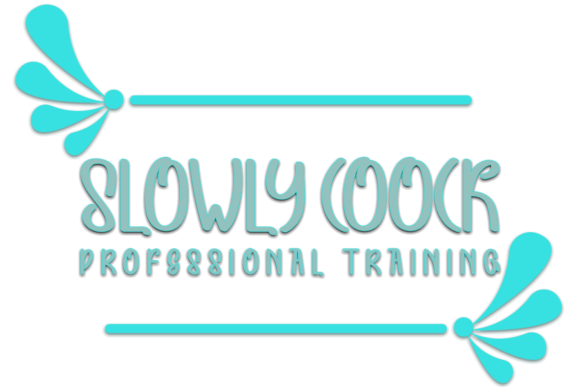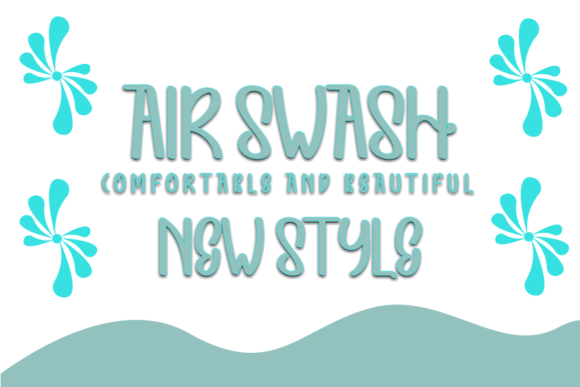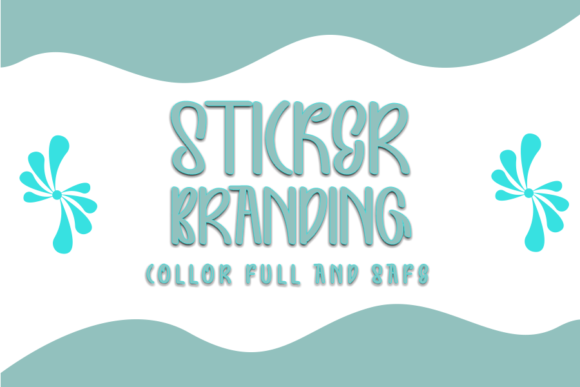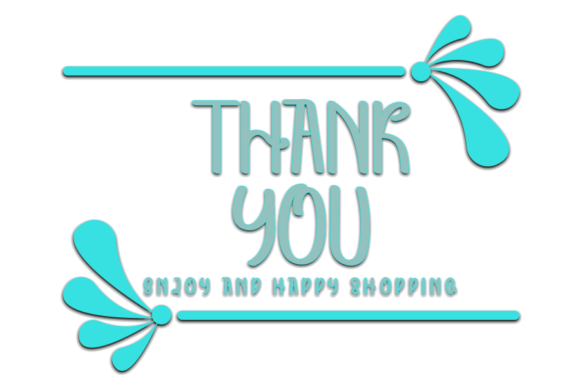
Introducing Crish Stick Font: The Ultimate Modern Handwritten Font
In the world of typography, a good font can make all the difference in the success of a design project. For designers and crafters looking for a modern, yet down-to-earth font, Crish Stick is an excellent choice. This carefully handcrafted handwritten font is designed to become a true favorite, offering a unique blend of casual charm and versatility.
The Characteristics of Crish Stick Font
Crish Stick is a modern handwritten font that boasts a wonderfully down-to-earth and readable style. Its casual charm makes it perfect for a wide range of design applications, from busy backgrounds to standalone headlines. The font’s unique characteristics include:
- Handcrafted with love: Crish Stick is carefully crafted to ensure that every letter and stroke is unique and authentic.
- Modern and fresh: The font features a modern and fresh design that will add a touch of elegance to any design project.
- Highly readable: Crish Stick is designed to be highly readable, making it perfect for use in a variety of contexts, from body text to headlines.
- Versatile: The font’s versatility makes it suitable for a wide range of design applications, from digital media to print materials.
Why Choose Crish Stick Font?
So, why should designers and crafters choose Crish Stick font for their projects? Here are just a few reasons:
- Unique and authentic: Crish Stick offers a unique and authentic handwritten style that will add a personal touch to any design project.
- Easily legible: The font’s high legibility makes it perfect for use in a variety of contexts, from body text to headlines.
- Flexible: Crish Stick is highly versatile and can be used in a wide range of design applications, from digital media to print materials.
- Time-saving: With Crish Stick, designers and crafters can save time and effort, as the font is ready to use and requires no additional editing or manipulation.
How to Use Crish Stick Font
Using Crish Stick font is easy and straightforward. Here are a few tips to get you started:
- Pair it with other fonts: Crish Stick can be paired with other fonts to create a unique and visually appealing design.
- Use it for headlines and titles: The font’s bold and playful style makes it perfect for use in headlines and titles.
- Experiment with colors and textures: Crish Stick can be used with a variety of colors and textures to add depth and interest to your design.
Design Applications for Crish Stick Font
Crish Stick font is highly versatile and can be used in a wide range of design applications, including:
- Digital media: The font can be used in digital media, such as social media graphics, blog posts, and website headers.
- Print materials: Crish Stick can be used in print materials, such as brochures, flyers, and posters.
- Branding and packaging: The font’s unique and authentic style makes it perfect for use in branding and packaging design.
In conclusion, Crish Stick font is an excellent choice for designers and crafters looking for a modern, yet down-to-earth font. Its unique characteristics, versatility, and high legibility make it perfect for use in a wide range of design applications. Whether you’re looking to add a personal touch to your design project or simply want a font that is easy to read and use, Crish Stick is an excellent choice.